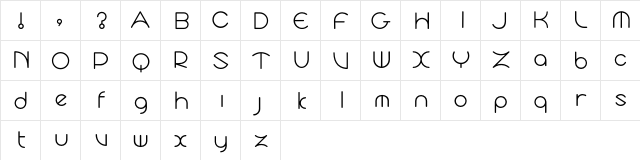
Cyclo Trial
| Foundry | Florent Courtaigne |
| Designer | Florent Courtaigne |
Design Context for Cyclo Typeface
Cyclo is a composed and adaptable typeface that performs quietly and consistently across a wide range of design contexts.